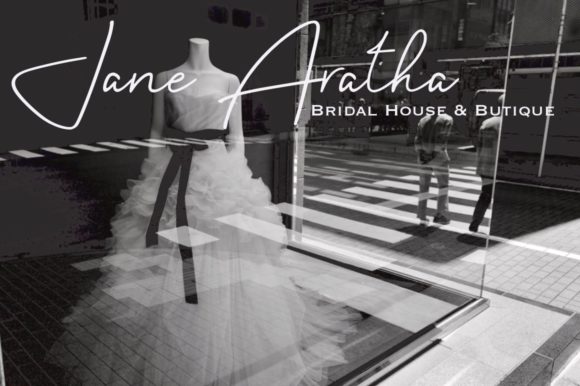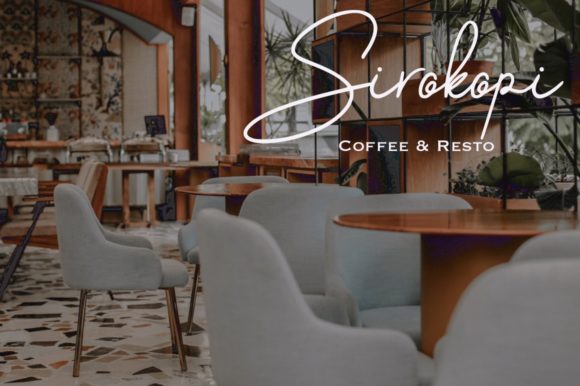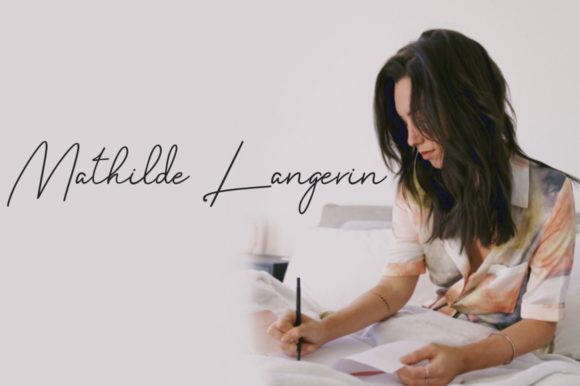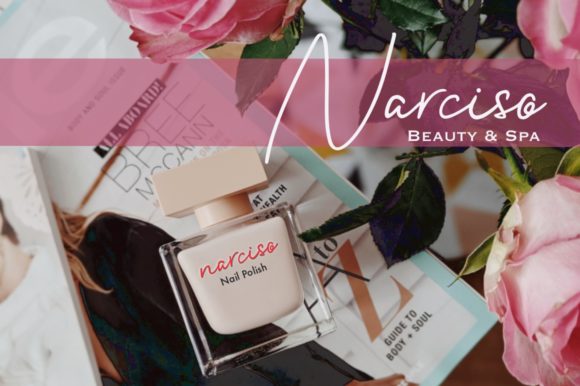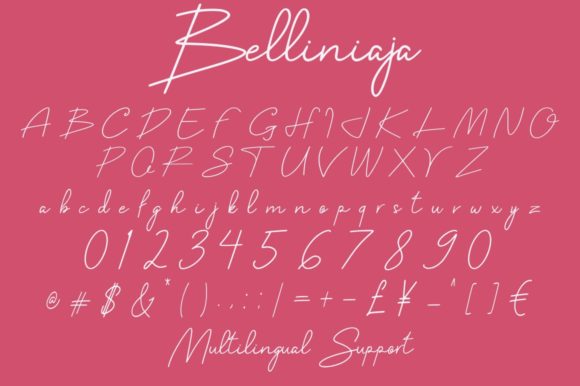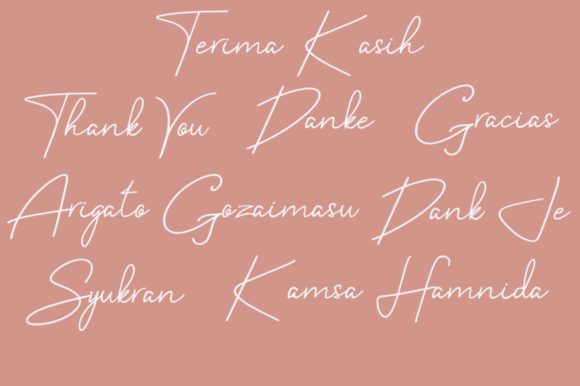
The Perfect Blend of Elegance and Versatility: Belliniaja Font
Have you ever stumbled upon a font that instantly sparks your creativity and transports you to a world of endless possibilities? For designers and artists, this moment is like finding a treasure trove of inspiration. It’s the moment when the perfect combination of style and functionality comes together, and the Belliniaja Font is one such gem.
Belliniaja Font is a delicate and elegant handwritten font that has been designed to bring out the best in your designs. Its unique and well-rounded letters make it a masterpiece that is sure to leave a lasting impression. Whether you’re working on a wedding invitation, a birthday card, or a branding project, Belliniaja Font is the perfect choice to add a touch of sophistication and elegance to your work.
As a valuable addition to any designer’s toolkit, the Belliniaja Font offers unparalleled versatility and flexibility. With its wide range of applications, from digital to print, it’s the perfect font for designers who want to create spectacular designs that leave a lasting impact.
Belliniaja Font Key Features
- Font Family: Belliniaja is a unique, high-quality font designed for digital use. It’s available in a range of weights and styles, including regular, bold, and italic.
- Unique Characteristics: Belliniaja features a unique blend of modern and vintage design elements, with a distinctive flair and elegance that sets it apart from other fonts.
Belliniaja Font Review
Overall, I found the Belliniaja Font to be a decent choice for certain design projects. Here are some of its strengths:
- ✨ Unique and stylish: The font has a distinctive, hand-drawn feel that can add a touch of elegance to your designs.
- ✨ High variability: Belliniaja comes in a range of weights and styles, making it versatile for use in different contexts.
- ✨ Good legibility: While not perfect, the font is generally easy to read, even at smaller sizes.
- ⚠️ Limited functionality: The font is primarily designed for display use, and may not be the best choice for body text.
- ⚠️ Potential for overuse: The unique style of the font can make it feel overused if not used thoughtfully.
- ⚠️ Limited compatibility: Some users have reported issues with the font in certain software or systems.
In conclusion, while Belliniaja is not a perfect font, it can be a valuable addition to your design toolkit. With careful use and attention to its limitations, it can add a touch of sophistication to your designs.
Tips for Getting the Most Out of Belliniaja Font
For the best results, use the Belliniaja font in designs that require a elegant and sophisticated look. It pairs well with clean and minimalist designs. Experiment with different font sizes, colors, and styles to create a unique look.
Alternatives to Belliniaja Font
Lato is a sans-serif font designed by Łukasz Dziedzic. It’s a modern and clean font, perfect for corporate branding, websites, and applications. Lato is highly legible and works well in both digital and print media. It’s a great alternative to Belliniaja Font for designers who need a clean and modern look.
Comparison: Lato Font is more minimalist and clean compared to Belliniaja Font. While Belliniaja Font has a more elegant and luxurious feel, Lato Font is more versatile and can be used in a wide range of applications.
What is the recommended font size and line height for the Belliniaja Font?
The recommended font size for the Belliniaja Font is between 12px and 24px, depending on the application and context. For body text, a line height of 1.2 to 1.5 times the font size is recommended to ensure readability and balance.